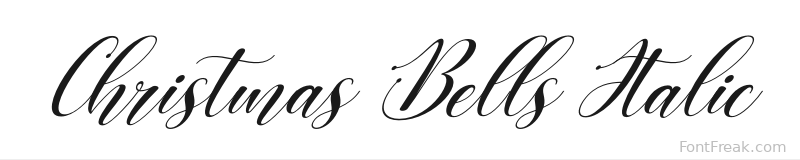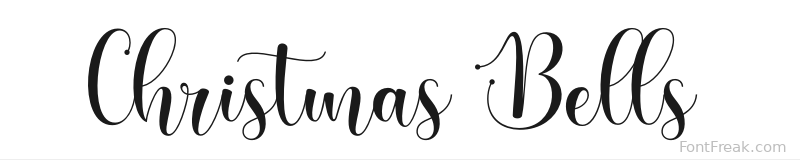
Christmas Bells
About Christmas Bells
Christmas Bells by Kong Font is a delightful script typeface that embodies the spirit of the holiday season. Released in 2020, this font features a whimsical design characterized by its elegant curves and playful strokes. The stroke weight varies throughout the letters, creating a dynamic contrast that enhances its festive charm. The spacing is well-balanced, allowing for easy readability while still maintaining a decorative flair.
The Christmas Bells font is perfect for a variety of seasonal applications. It shines in wedding invitations, where its romantic and festive appearance can add a touch of elegance. Additionally, it is well-suited for holiday greeting cards, making your messages more special and personal. This typeface also works beautifully for Christmas-themed party invitations and event posters, helping to capture the joyous atmosphere of the season. Small business owners can utilize this font for marketing materials, such as menus or promotional flyers, that aim to convey a warm and inviting feel.
Targeting graphic designers, content creators, and anyone looking to add a festive touch to their projects, the Christmas Bells font free download offers a versatile option for creative endeavors. Its unique combination of elegance and playfulness makes it an ideal choice for conveying holiday cheer while maintaining a professional appearance.
What sets the Christmas Bells font apart is its ability to blend charm with functionality. The decorative elements, including the elegant swirls and curls, are not just visually appealing but also contribute to a distinctive brand identity. Whether you are crafting festive materials for personal use or enhancing your business's holiday offerings, this font promises to elevate your designs and bring a sense of joy to your projects.